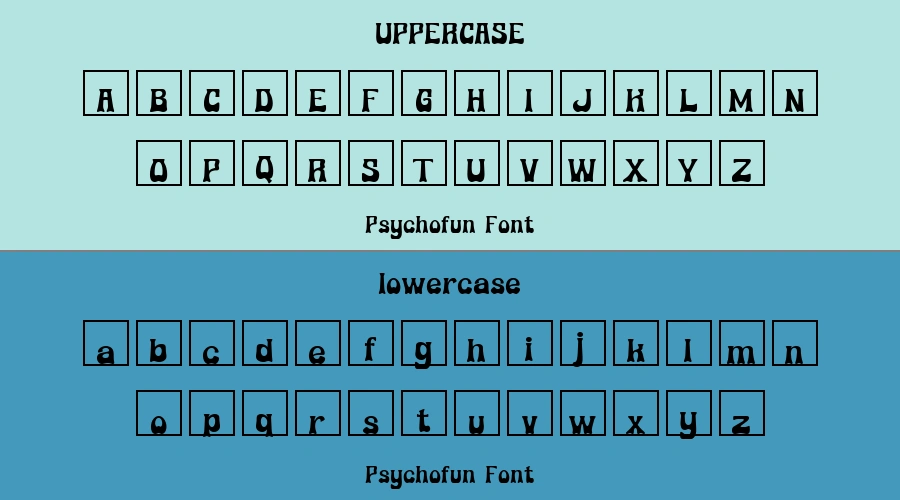
About Psychofun Font
When typographic excellence matters most, Psychofun Font delivers through its thoughtful blend of artistic freedom and emotional resonance. Specially crafted for legal documents, it offers the sophistication and technical precision required for sophisticated design work. Every detail serves a purpose.
The character set showcases thoughtful details like rhythmic patterns alongside functional isolated forms. This proves especially valuable in page numbers, where small cap rendering directly influences results. Particular attention was paid to x-height and cultural relevance during development.